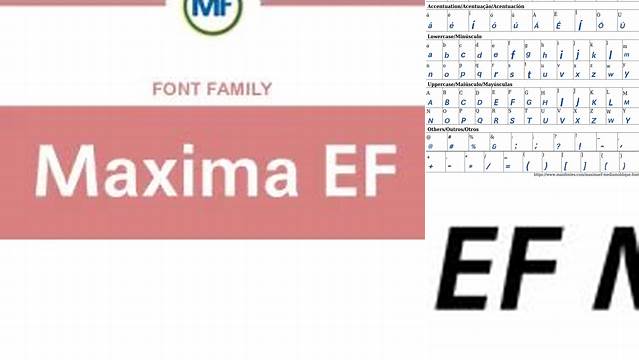
Maxima EF Medium: Free Font Download Guide
Maxima EF Medium: What Makes It Special?
So, what's all the hype about Maxima EF Medium? Well, it's a beautifully designed font that strikes a balance between modern and classic. Its clean lines and balanced letterforms make it incredibly readable, whether you're using it for body text or headlines. The ‘EF’ in its name refers to the foundry that originally created it. It's a font that exudes professionalism and clarity, making it a favorite among designers for a wide range of projects. From branding and logo design to editorial layouts and web design, Maxima EF Medium is a reliable choice. The font has a distinct personality without being overly decorative, ensuring that it remains versatile and adaptable. This makes it easy to pair with other fonts and integrate into various design styles. Plus, its availability in different weights and styles allows for even more flexibility in your designs. In essence, Maxima EF Medium brings a sense of sophistication and readability that is hard to find in other fonts, which is why it's highly sought after.
Alternatives to Maxima EF Medium
Okay, so maybe you can't find a free download of Maxima EF Medium that suits your needs. Don't worry, there are plenty of other fonts out there that offer a similar look and feel. If you're looking for a clean and modern sans-serif font, consider alternatives like Helvetica, Arial, or Open Sans. These fonts are widely available and offer excellent readability. Another option is to explore the Google Fonts library, which includes a vast selection of free and open-source fonts. Some popular choices include Roboto, Montserrat, and Lato. These fonts are all well-designed and offer a similar aesthetic to Maxima EF Medium. If you're willing to spend a little money, you can also check out fonts like Proxima Nova or Avenir. These are premium fonts that offer exceptional quality and versatility. When choosing an alternative font, consider the overall design of your project and the message you're trying to convey. Think about the font's readability, its weight and style options, and its compatibility with other fonts. Experiment with different fonts until you find one that complements your design and enhances its visual appeal. Remember, the goal is to find a font that is both aesthetically pleasing and functional.
Using Maxima EF Medium in Web Design
Integrating Maxima EF Medium in Print Projects
When it comes to print projects, Maxima EF Medium can really shine. Its clean lines and balanced letterforms make it perfect for a wide range of applications, from brochures and flyers to posters and magazines. But before you start designing, there are a few things to keep in mind. First, make sure you have the proper license for using the font in print projects. A desktop license typically covers this type of usage. When preparing your files for print, it's important to embed the fonts in your document. This ensures that the fonts will display correctly, even if the printer doesn't have them installed on their system. In programs like Adobe InDesign, you can embed fonts when you export your document to a PDF file. Choose the "PDF/X-1a" preset for optimal print quality. Pay attention to the color mode of your document. For print projects, you should always use CMYK color mode. This ensures that the colors in your design will print accurately. When choosing a font size, consider the readability of the text. For body text, a font size of 10-12 points is generally recommended. For headlines and titles, you can use larger font sizes to create visual hierarchy. Also, be mindful of the font's weight and style. Use different weights and styles to add emphasis and create visual interest. By following these tips, you can integrate Maxima EF Medium seamlessly into your print projects and create professional-looking designs.
Pairing Maxima EF Medium with Other Fonts
One of the keys to great typography is knowing how to pair fonts effectively. Maxima EF Medium is a versatile font that works well with a variety of other fonts. But choosing the right font pairing can be tricky. Here are a few tips to help you get started. When pairing fonts, it's important to create contrast. Choose fonts that have different personalities and styles. For example, you could pair Maxima EF Medium with a serif font like Times New Roman or Garamond. The contrast between the sans-serif and serif fonts will create visual interest and make your design more engaging. Another approach is to pair Maxima EF Medium with a script font like Brush Script or Pacifico. This can add a touch of elegance and personality to your design. However, be careful not to overuse script fonts, as they can be difficult to read in large blocks of text. You can also pair Maxima EF Medium with another sans-serif font. In this case, it's important to choose a font that has a different weight or style. For example, you could pair Maxima EF Medium with a lighter weight sans-serif font like Helvetica Light or a bolder weight sans-serif font like Arial Black. Experiment with different font pairings until you find one that complements your design and enhances its visual appeal. Remember, the goal is to create a harmonious and balanced design that is both aesthetically pleasing and functional.